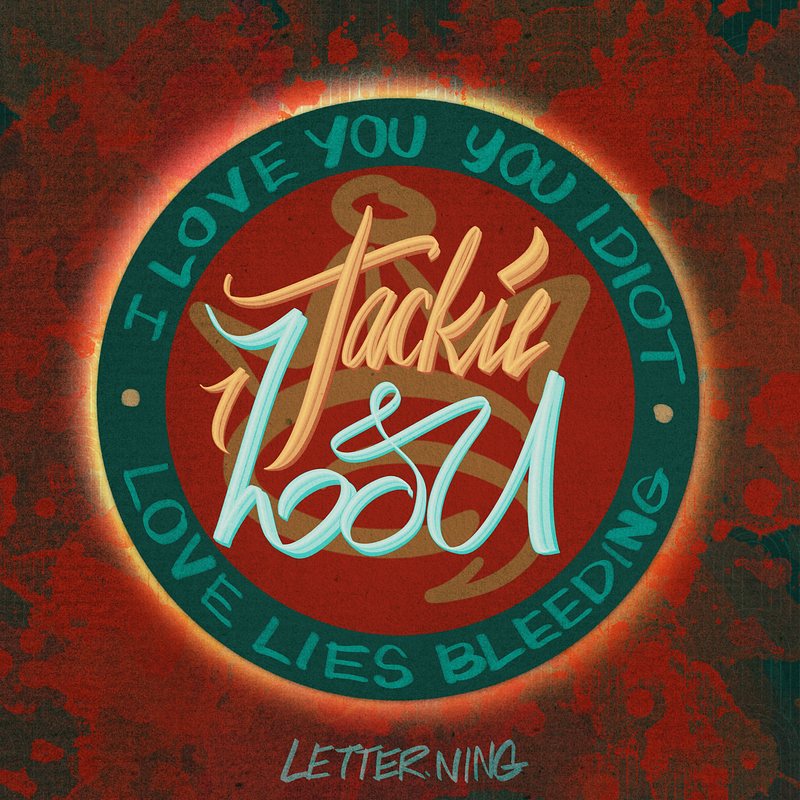
The Pride Month Lettering 00009-Jackie and Lou from Love Lies Bleeding
Character Names
Love Lies Bleeding is like stepping into a dreamy world of a queer love story. Jackie and Lou are absolutely mesmerizing together, with their toxic yet endearing love. I literally put their love above all the bloodshed in my lettering piece to match the movie title Love Lies Bleeding.
One of the best parts of this film is the rare portrayal of strong, muscular women in such a beautiful way. And let's not forget Kristen Stewart's iconic line, "I f**king love you, you idiot"--unfortunately, I can't include the F word in my lettering piece πŸ˜‚.